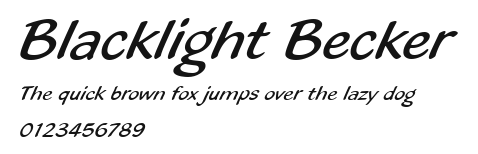
• Font Name: Blacklight Becker
Blacklight Becker.ttf is a modern, elegant sans-serif font designed for ultimate readability and visual harmony. Perfect for branding, headlines, web design, and print materials.